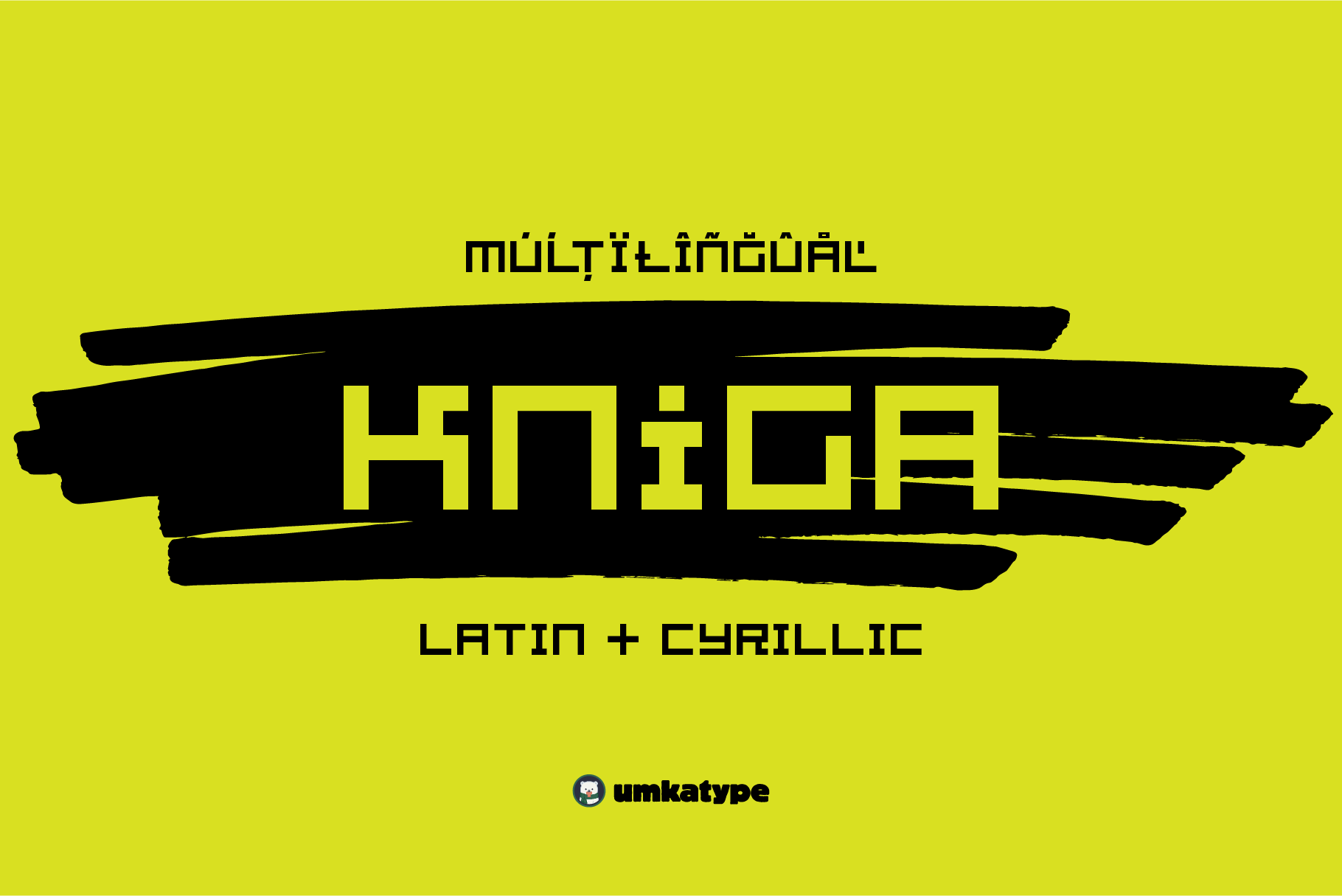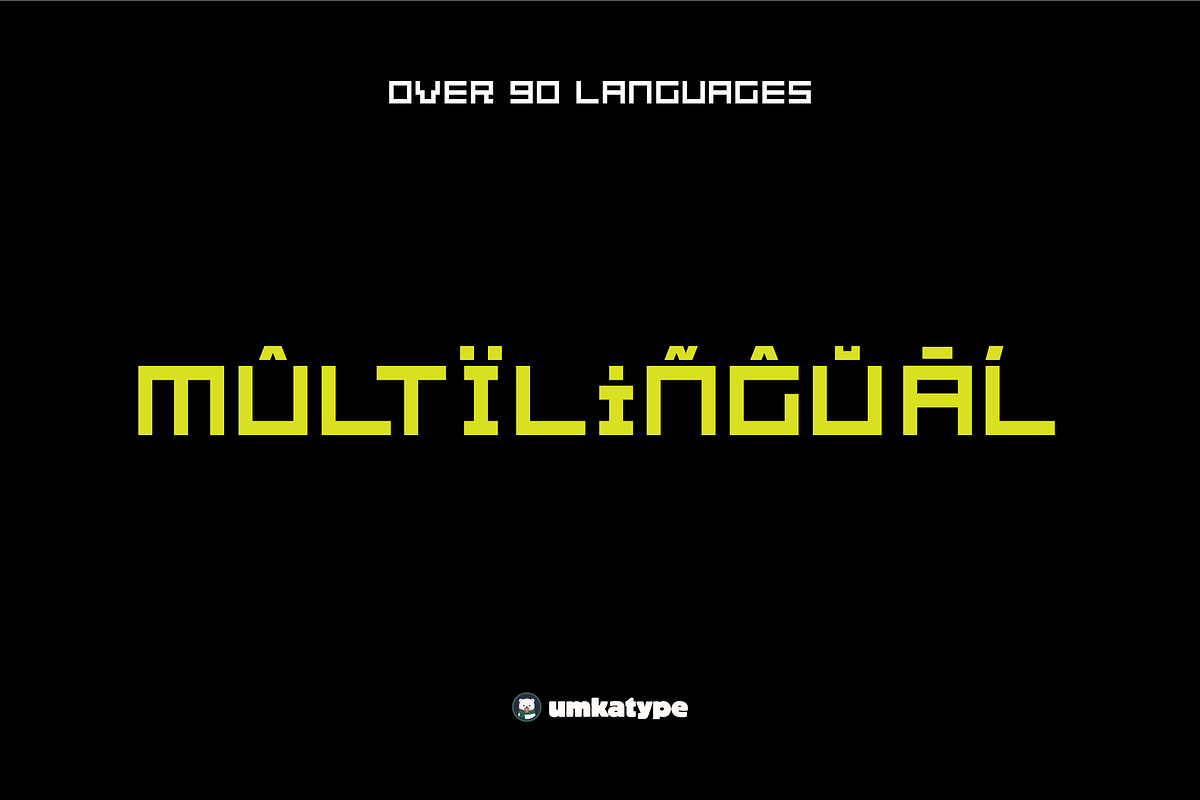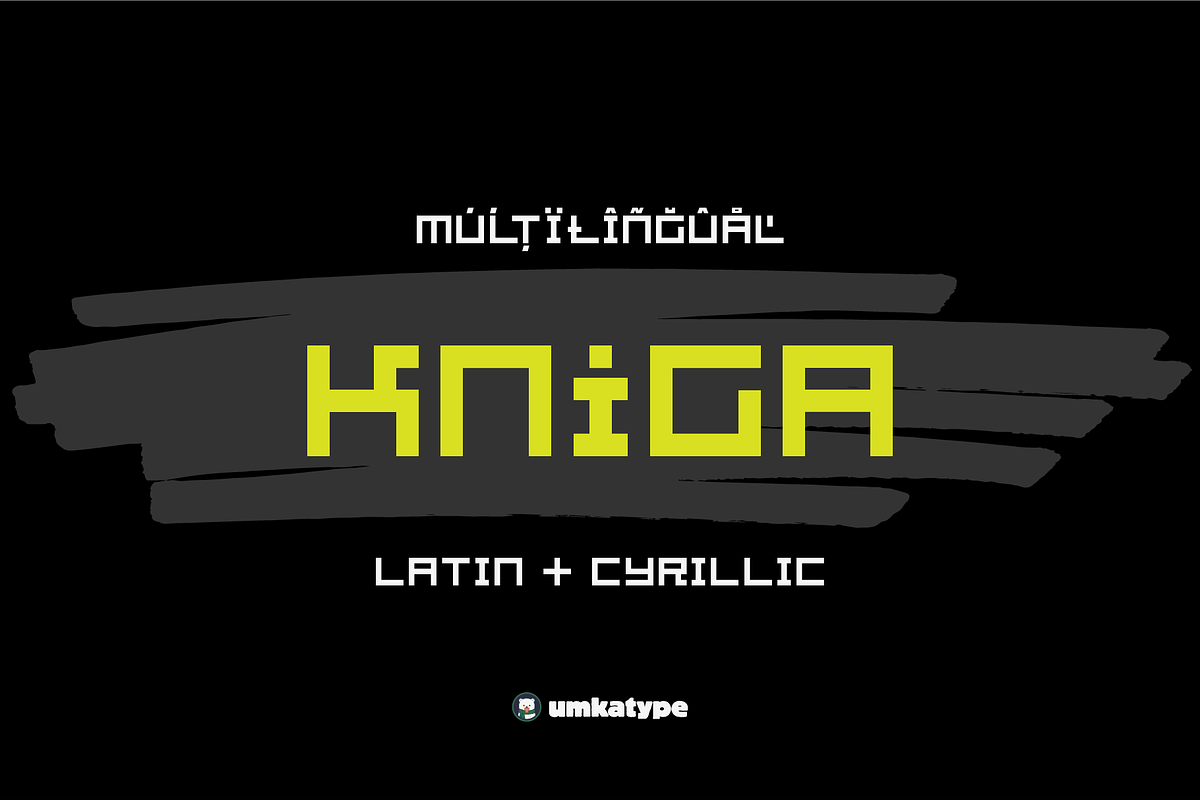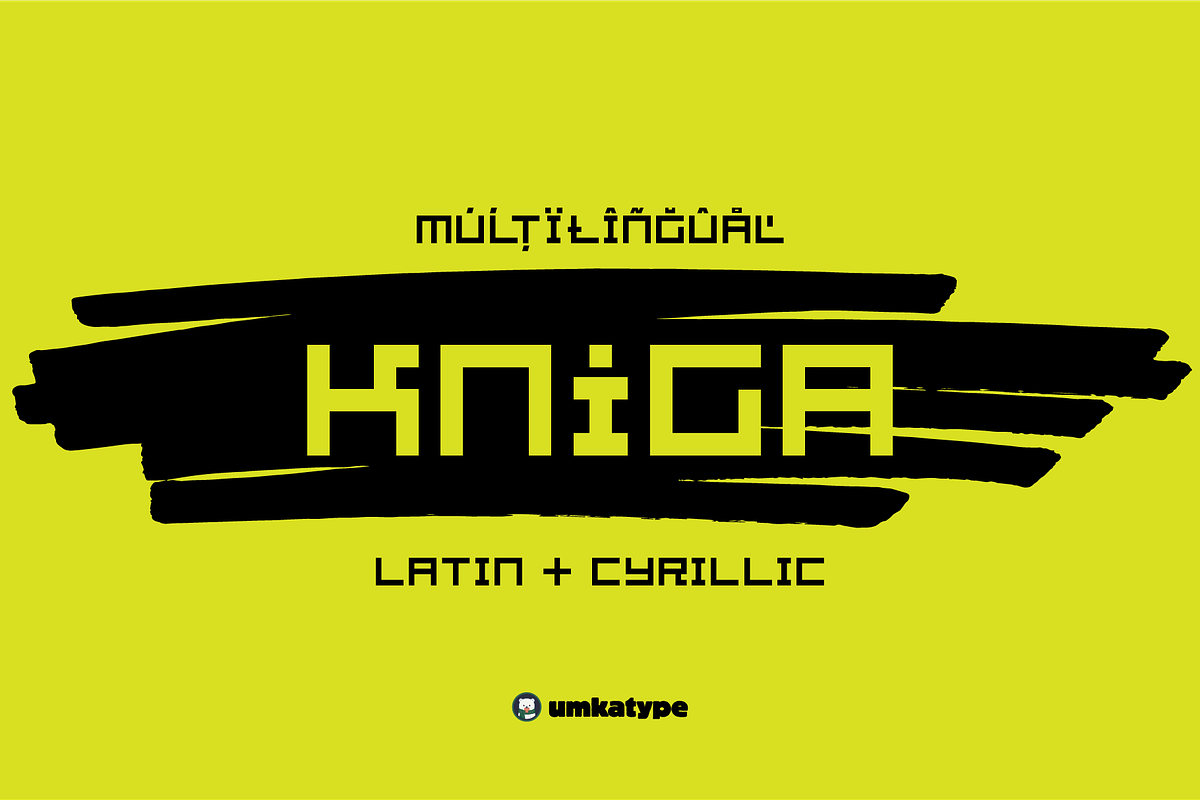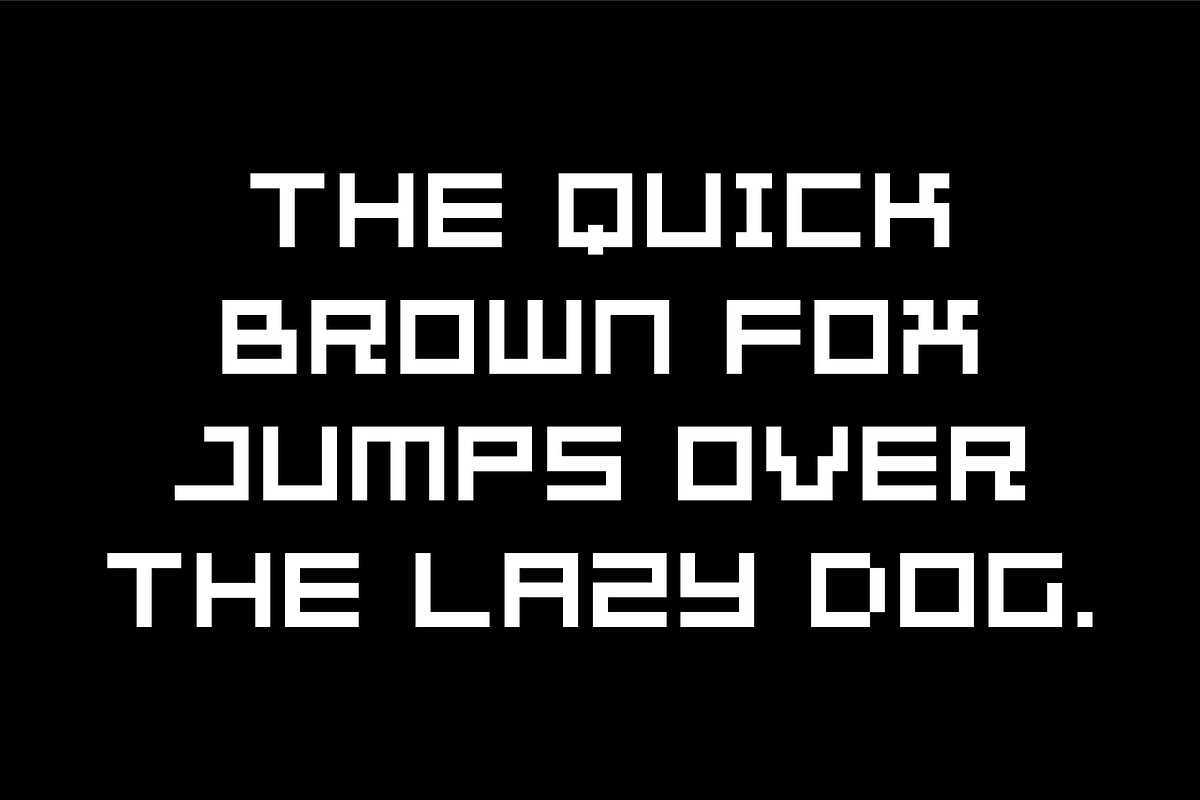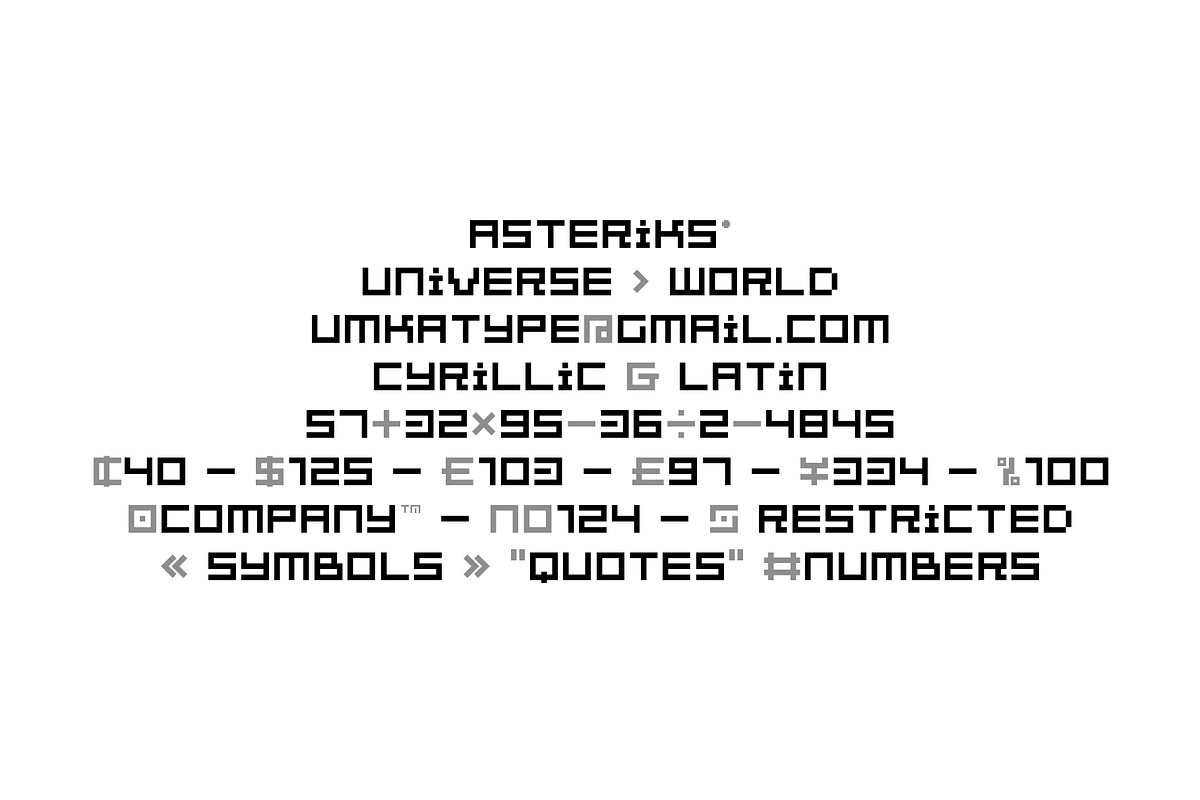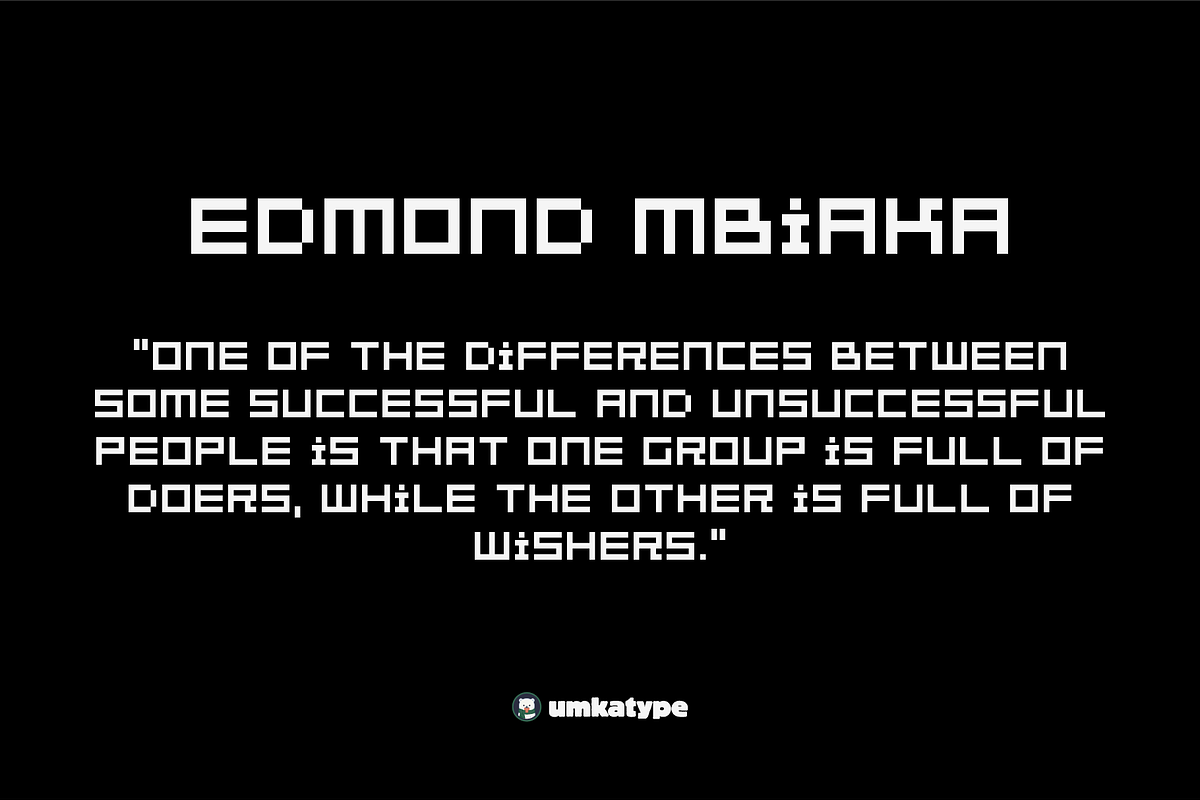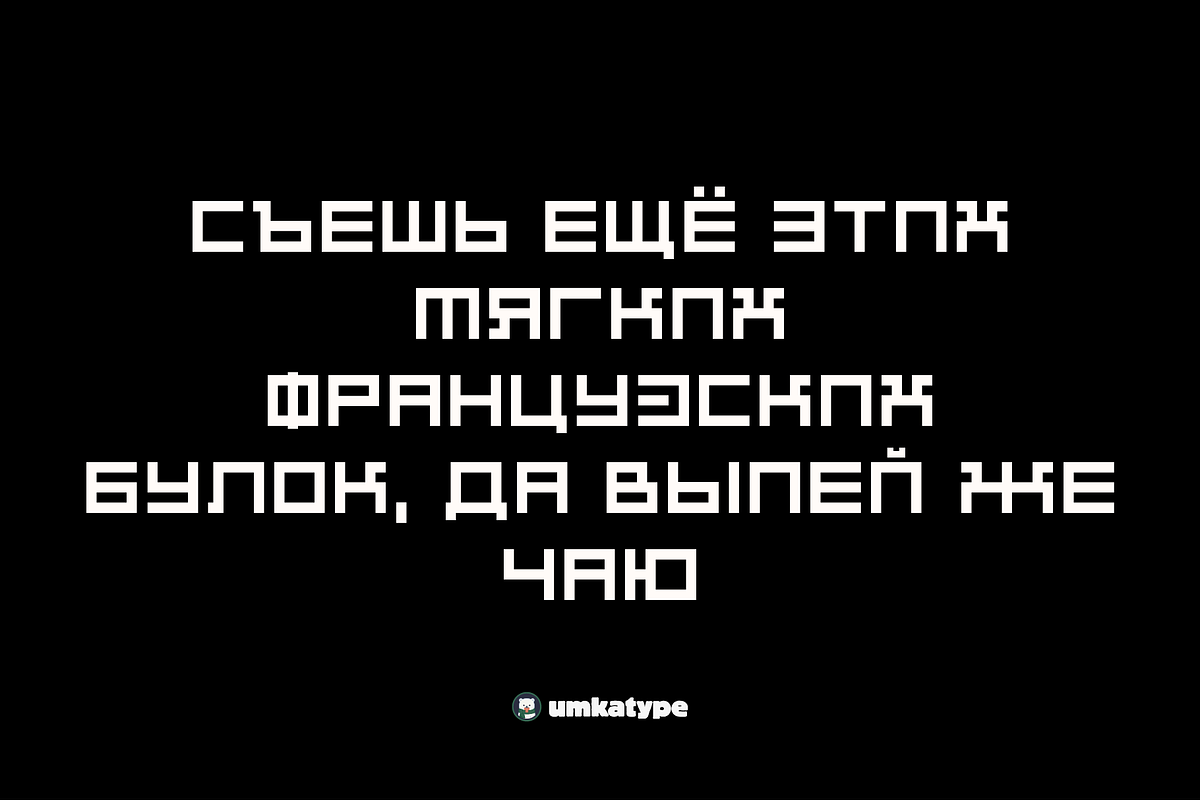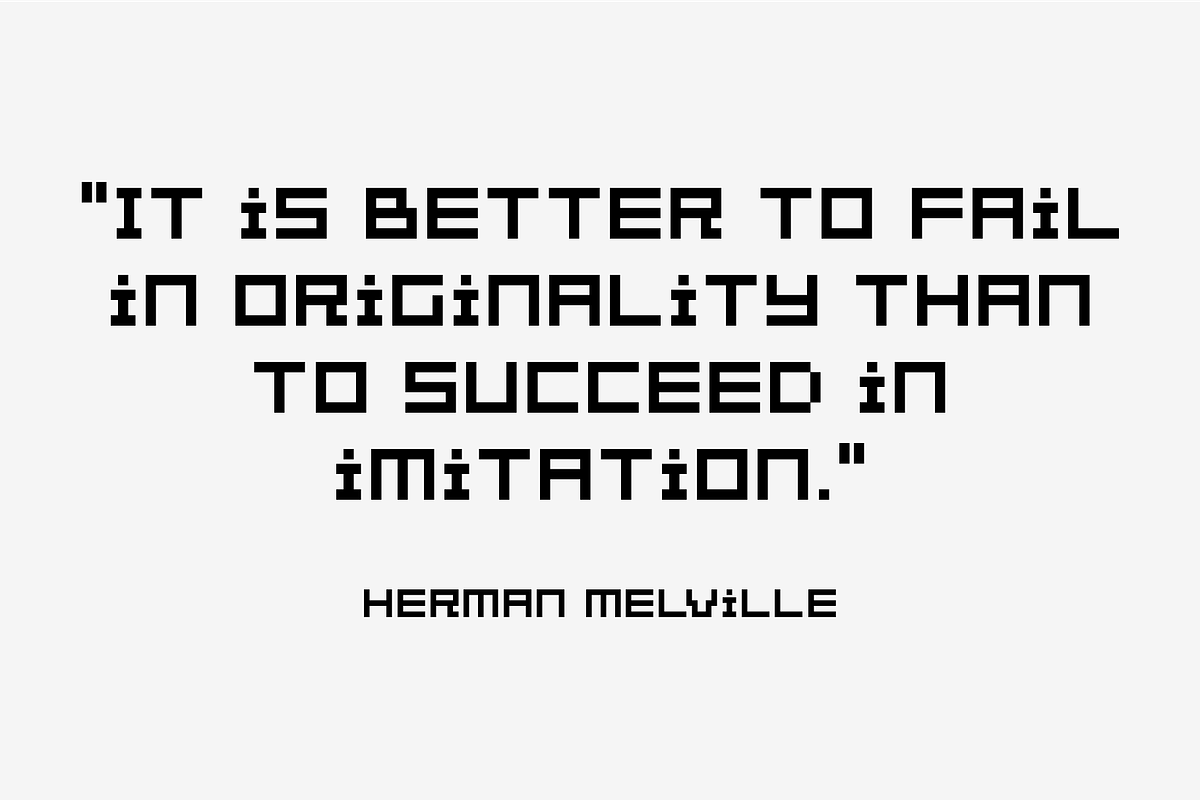
Kniga Display Font
Kniga - Display Font
- Kniga is a carefully crafted font.
- Multilingual: It has Extended Latin and Extended Cyrillic letters.
Kniga created for games, web design, branding and social media works.